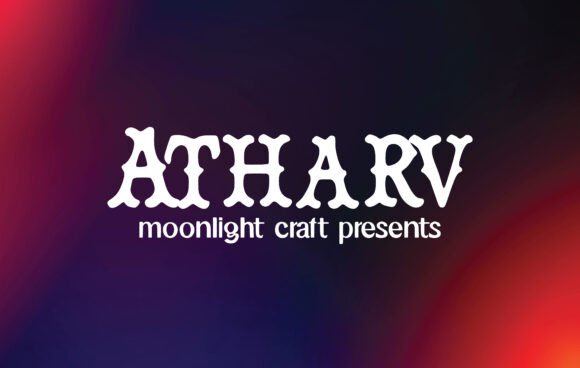
Atharv Font: Elevating Campaign Visuals and Brand Identity
Using Atharv for Eye-Catching Logos and Branding Assets
When I first integrated Atharv into a recent rebranding project, I immediately recognized that this Slab Serif typeface offered the structural confidence my client’s visual identity was missing. In the crowded landscape of digital Fonts, finding a typeface that balances personality with professional authority is rare, yet Atharv is a lovely and beautiful font that delivers exactly that equilibrium. During the logo exploration phase, we needed a mark that felt established but not outdated, and the sturdy serifs of Atharv provided a foundation that felt both modern and timeless. This font has the potential to take your creative ideas to the highest level because it doesn't just display text; it anchors the entire brand narrative.
For marketers building a cohesive identity system, Atharv serves as an exceptional primary display font. Its weight commands attention without screaming, making it ideal for wordmarks where legibility at small sizes is non-negotiable. When designing business cards, social media profile badges, or website favicons, the distinct character shapes maintain their integrity even when scaled down. Unlike thinner script fonts that disappear on mobile screens or overly bold sans serifs that can feel aggressive, Atharv occupies a strategic middle ground. It communicates reliability and warmth simultaneously, which is crucial for brands trying to build trust during a launch or repositioning effort. By choosing this typeface for core branding assets, you ensure that every touchpoint reinforces a consistent, recognizable visual voice.
Atharv Typography for High-Impact Social Media Quotes
Creating shareable content requires typography that stops the scroll, and using Atharv for quote graphics has significantly improved engagement rates in my recent social campaigns. As a versatile Slab Serif option among display Fonts, it transforms simple text overlays into premium editorial visuals that audiences want to save and share. When preparing a week’s worth of Instagram carousel posts and Pinterest pins for a wellness brand, I found that Atharv is the best choice for creating eye catching logos, branding and quotes because its letterforms carry an inherent elegance that elevates the perceived value of the message. The font’s natural rhythm guides the reader’s eye through longer passages of inspirational text without causing fatigue, a common issue with more decorative alternatives.
Readability on fast-scrolling feeds is paramount, and Atharv excels in high-contrast environments. Whether placing white text over a dark moody photograph or dark text against a pastel background, the slab serifs create enough negative space to prevent letters from blurring together on smartphone screens. I often pair Atharv headlines with a clean, neutral sans serif body copy to establish a clear visual hierarchy; the contrast between the structured slab serif and the minimalist supporting text creates a dynamic tension that feels intentional and polished. For content creators managing multiple platforms, this font scales beautifully from vertical Reels covers to horizontal LinkedIn banners, ensuring that your key messages remain crisp and impactful regardless of the aspect ratio or device.
Designing Promotional Banners with Atharv Display Font
During a seasonal sale campaign, I relied heavily on Atharv to drive urgency and clarity across our email headers and paid digital ads. Selecting the right Slab Serif from the vast library of commercial Fonts can make or break a promotional asset, and Atharv proved to be a workhorse for conversion-focused design. We needed a headline treatment that felt celebratory yet trustworthy, avoiding the cheap aesthetic often associated with discount graphics. Atharv is a lovely and beautiful font that brought a sense of sophistication to our "New Collection" announcements, making the promotion feel like an exclusive event rather than a clearance bin. This distinction is vital for maintaining brand equity while driving short-term sales volume.
The practical application of Atharv in advertising extends to its performance in thumbnail generation and video overlays. When designing YouTube thumbnails or webinar promotional graphics, the font’s robust structure ensures readability even when the image is compressed or viewed at low resolution. I have found that uppercase settings in Atharv create powerful, blocky headlines that act as visual hooks, while title case usage feels more conversational and inviting for subheaders. Before deploying these assets, I always verify the specific weights and alternates included in the font file to maximize versatility; having access to different stylistic sets allows me to customize ligatures or adjust spacing for specific layouts without breaking the typographic system. Additionally, confirming commercial licensing for ad spend and merchandise is a critical step in the workflow, ensuring that the campaign remains compliant across all channels.
Pairing Atharv with Modern Sans Serif Fonts for Web Headers
Building a landing page that converts requires a typographic partnership where Atharv leads the conversation while supporting elements facilitate navigation. As a distinctive Slab Serif, it demands a counterpoint, and pairing it with geometric or humanist Fonts creates a balanced user experience that reduces bounce rates. In a recent product launch site, we used Atharv exclusively for H1 and H2 tags to establish immediate topical relevance and emotional connection, while utilizing a highly legible sans serif for paragraphs, buttons, and UI elements. This font has the potential to take your creative ideas to the highest level by acting as the stylistic anchor that gives the entire web interface a bespoke, custom-designed feel without requiring expensive custom lettering services.
The interaction between Atharv and modern web typography systems also influences perceived loading speed and content digestibility. Because the font carries significant visual weight, it allows designers to use fewer words to convey the same impact, leading to cleaner layouts with more whitespace. When testing mobile responsiveness, I pay close attention to line height and letter spacing adjustments specific to Atharv; slab serifs often require slightly increased tracking in digital environments to prevent the serifs from touching on narrow viewports. This attention to technical detail ensures that the "lovely and beautiful" aesthetic translates perfectly from desktop mockups to actual user devices. Furthermore, utilizing Atharv for call-to-action button text or special offer badges can increase click-through rates by leveraging the font’s unique ability to draw focus through form rather than just color or size.
Atharv for Editorial Layouts and Digital Storytelling
Content marketing thrives on narrative, and incorporating Atharv into blog headers and newsletter designs adds a layer of editorial polish that generic templates cannot achieve. While many Slab Serif options are reserved strictly for display purposes, Atharv possesses enough refinement to function in shorter pull quotes and introductory paragraphs within a curated selection of Fonts. When crafting a storytelling series for a lifestyle brand, I utilized Atharv to highlight key takeaways and section breaks, effectively guiding readers through long-form content with visual cues that felt organic rather than intrusive. It is the best choice for creating eye catching logos, branding and quotes, but its utility in editorial design demonstrates its range as a comprehensive creative tool.
For digital publishers and bloggers, consistency in typography builds audience familiarity and trust. Using Atharv as a recurring motif in featured images, category labels, and author bylines creates a subtle thread that ties disparate pieces of content together. This strategic repetition reinforces brand recognition over time, turning casual visitors into loyal followers who associate that specific typographic texture with your unique voice. When preparing assets for cross-platform distribution, such as adapting a blog post into an Instagram carousel or a TikTok text overlay, Atharv provides a flexible base that adapts to various contexts without losing its core identity. By treating typography as a strategic campaign asset rather than an afterthought, marketers can leverage Atharv to create more cohesive, professional, and ultimately more effective visual communications that resonate deeply with their target audience.